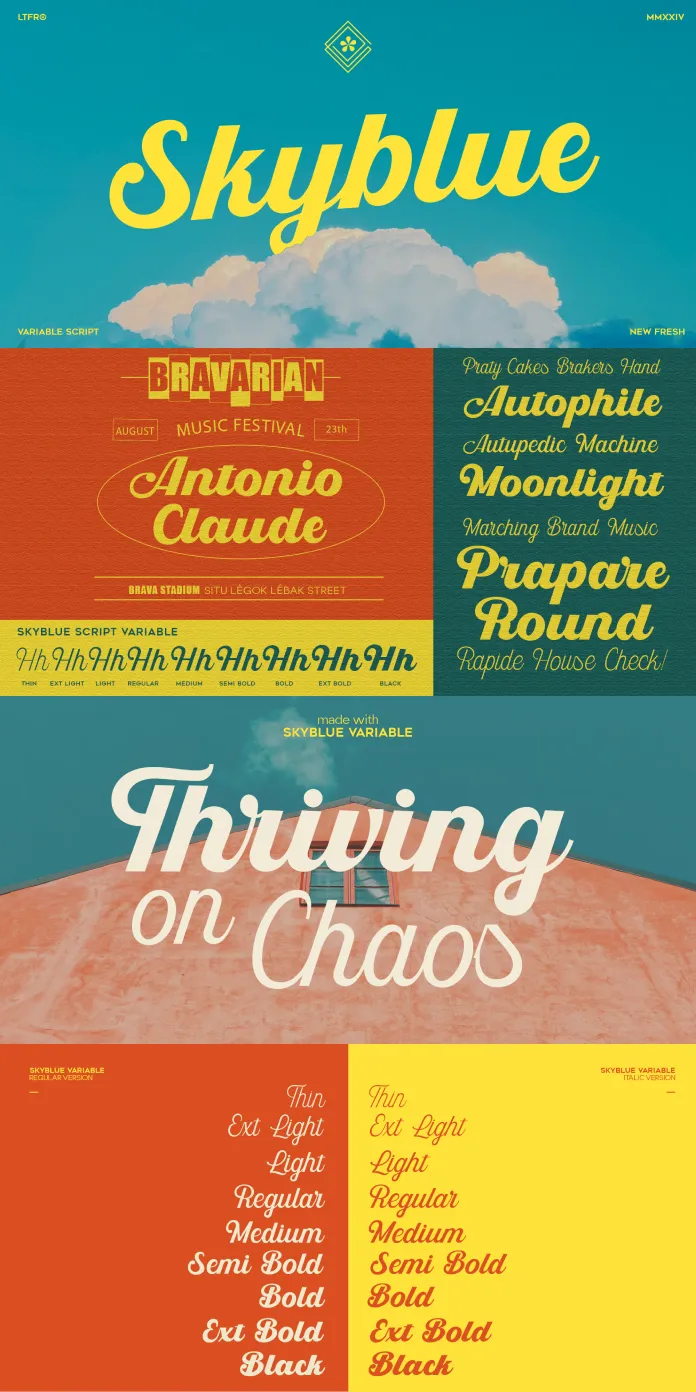
Designed by Rizki Andika of Letterfreshstudio, the Skyblue Script Variable font family represents a new evolution in script typefaces, meticulously crafted to embody a balanced and dynamic aesthetic. This typeface, with its graceful curves and versatile character, is imbued with a distinctive personality, making it ideal for a variety of creative applications.
Versatility in Design
Skyblue Script Variable is engineered to be highly adaptable, making it suitable for an array of design needs. It shines as a logo, badge, emblem, packaging design, title, poster, t-shirt/clothing print, greeting card, and wedding invitation. Its flowing characters are particularly effective in conveying engaging and emotive messages, ensuring that any text stands out with elegance and charm.
Dynamic Character Set
The font family offers a rich set of characters, allowing designers to mix and match weights to perfectly complement their projects. This flexibility ensures that Skyblue Script Variable can meet the demands of different design contexts, whether they require a light, airy touch or a bold, impactful statement.
Advanced OpenType Features
Skyblue Script Variable comes equipped with several advanced OpenType features. These include Stylistic Alternates, Stylistic Sets, and Ligatures, providing designers with a wide range of creative possibilities. These features can be accessed through OpenType-compatible programs such as Adobe Illustrator, Adobe Photoshop, and Adobe InDesign, allowing for seamless integration into professional design workflows.
With its expertly balanced design and extensive feature set, the Skyblue Script Variable font family is a powerful tool for any designer looking to add a touch of sophistication and personality to their work. Whether used for branding, apparel, or print design, this typeface family offers the versatility and aesthetic appeal needed to elevate any project.